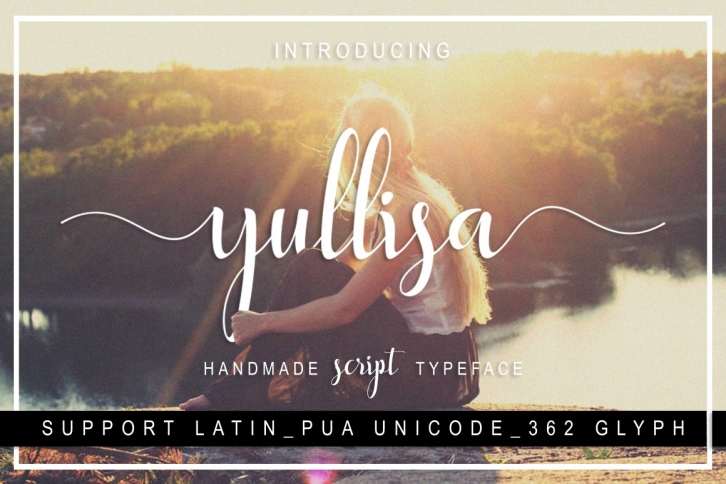
Yullisa script is a trendy and unique font with an authentic style. It was designed by Bexxtype and it's a great choice for creative people who need such a font. It was released on January 29, 2017 and the file size is 18.55 MB. Yullisa script will add an organic vibe to any design idea!